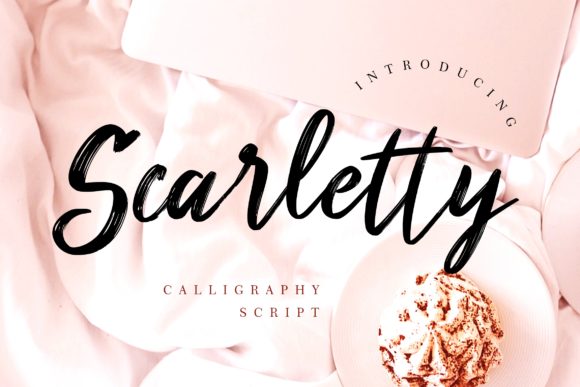
Step into a world of elegance and sophistication with Scarletty Font, the handcrafted masterpiece from CreatypeStudio. This script font, inspired by the beauty of handwritten notes, captures the essence of charm and authenticity. With its sweeping strokes and graceful curves, Scarletty breathes life into your designs, adding a touch of allure that captivates the senses.
More than just a font, Scarletty is an artistic expression that dances across the page, evoking emotions and weaving stories. Its versatility knows no bounds, making it the perfect choice for a multitude of projects, from heartfelt love letters to eye-catching branding.
With Scarletty, you'll discover a treasure trove of creative possibilities. Use it to craft stunning logos that leave a lasting impression, design invitations that exude elegance, or create personalized cards that touch the hearts of your loved ones. Its timeless appeal shines through in every letterform, elevating your designs to new heights of refinement.
As a signature font, Scarletty excels in adding a personal touch to your work. Its graceful script mimics the stroke of a pen, giving your words an intimate and authentic feel. Whether you're signing off on a heartfelt letter or adding a personal touch to your business documents, Scarletty transforms your words into a work of art.
Immerse yourself in the world of Scarletty and unlock a realm of creative possibilities. Its enchanting style will captivate your audience, leaving them spellbound by the beauty of your designs. Explore the endless potential of this font and transform your projects into masterpieces that radiate elegance and charm.